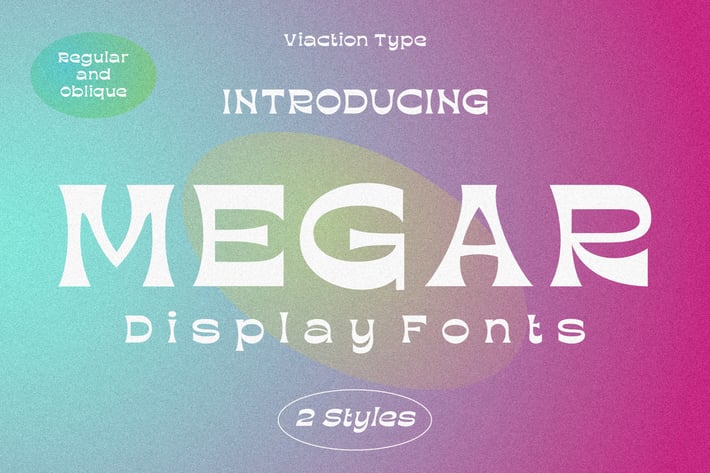
Megar - Display Fonts
ViactionType
Our new product! Megar is a display font with a bold retro feel and available in 2 styles, regular & oblique. It is suitable to complement your work with a retro or pop art theme. Megar is sold at affordable prices and you will get lots of bonus background gradient & gradient shapes. Get this font right now! This product includes: